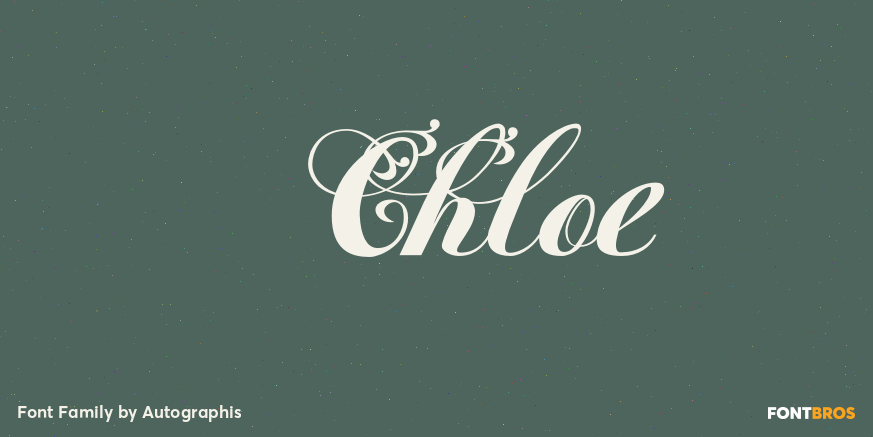
Chloe is a very dramatic script with high contrast between the up- and down-strokes. It is not really useful for long copy, but very good at short captions or as a decorative part of your layout.